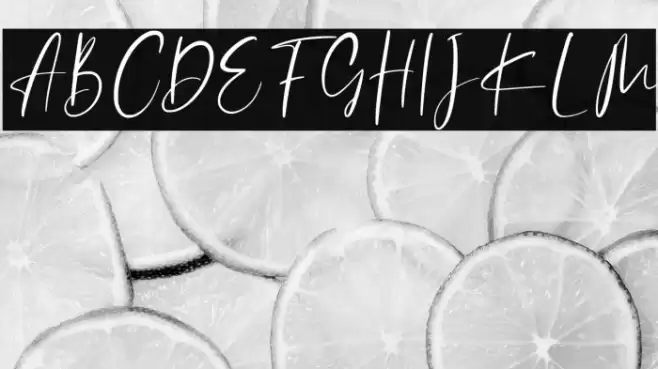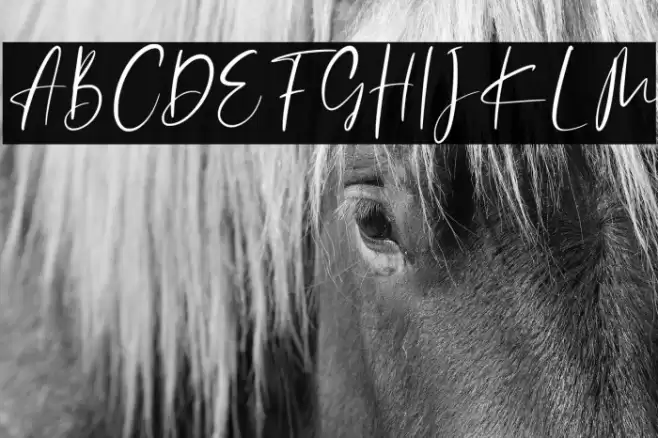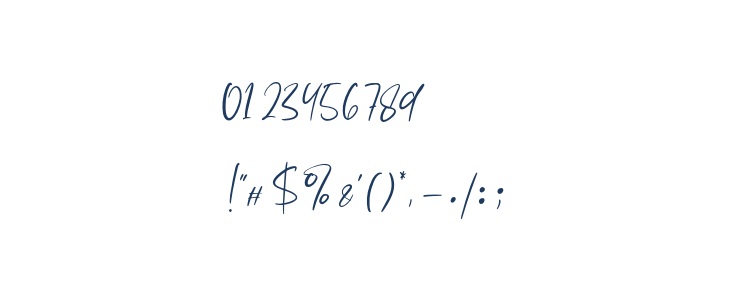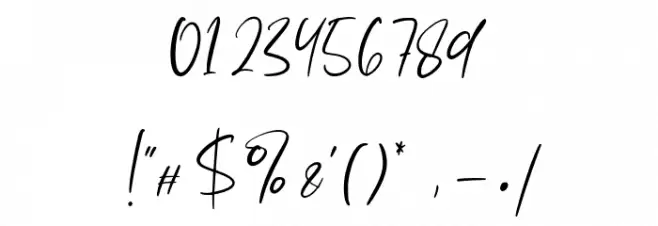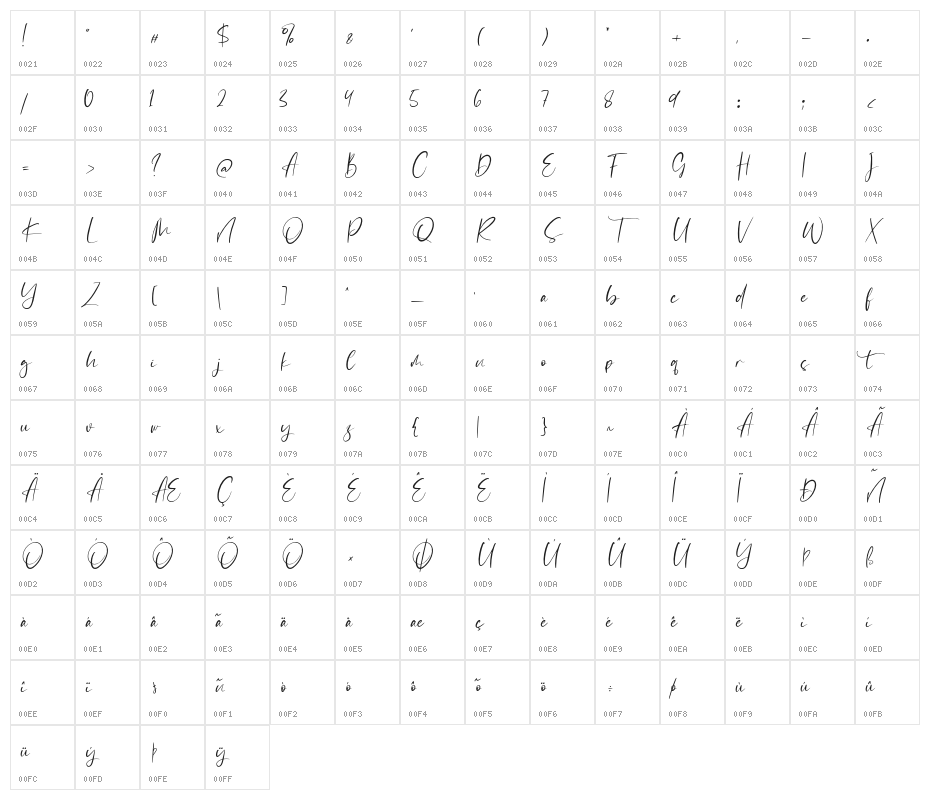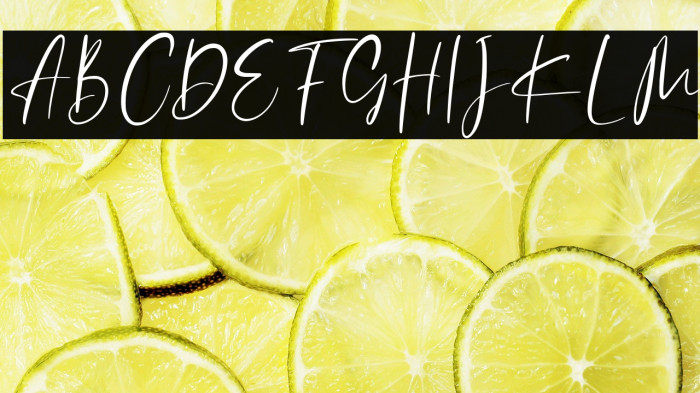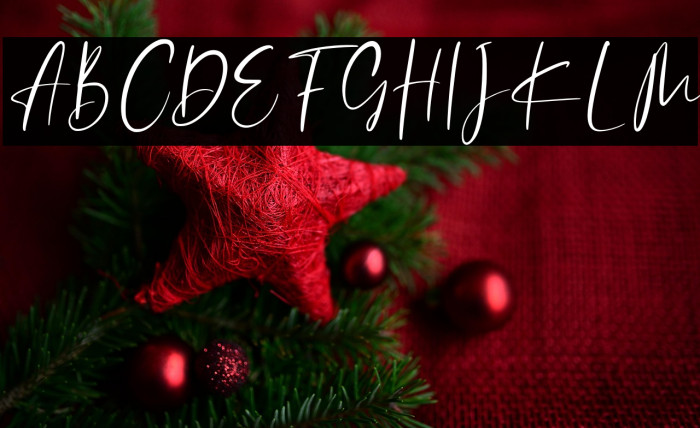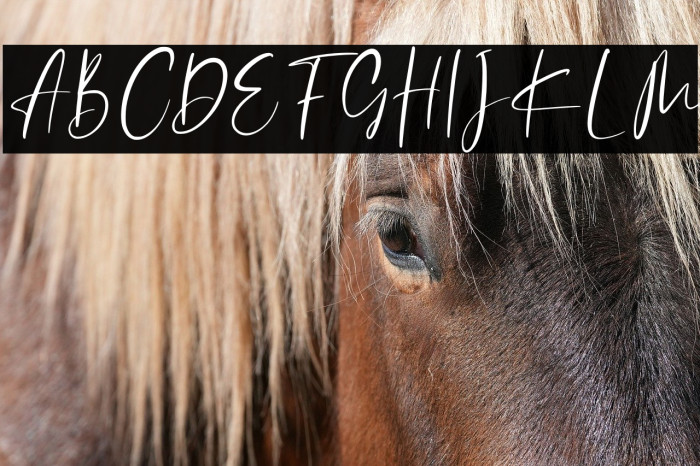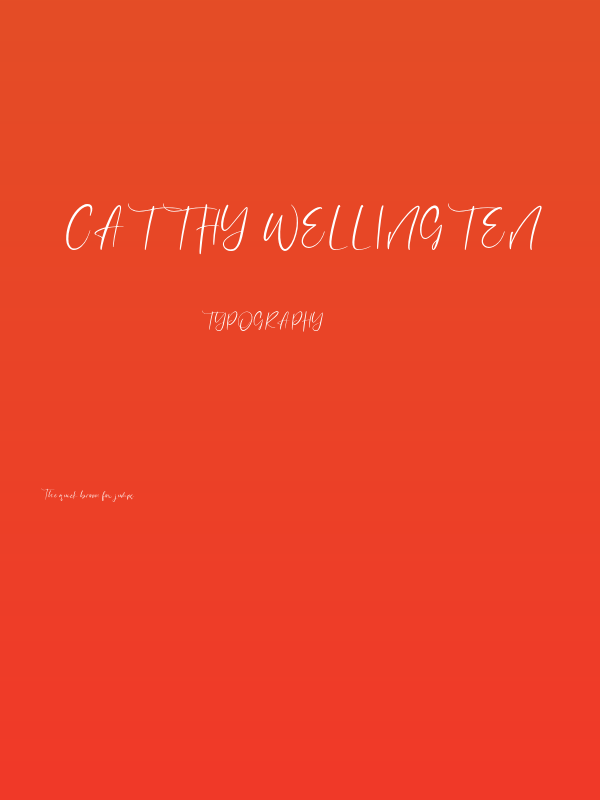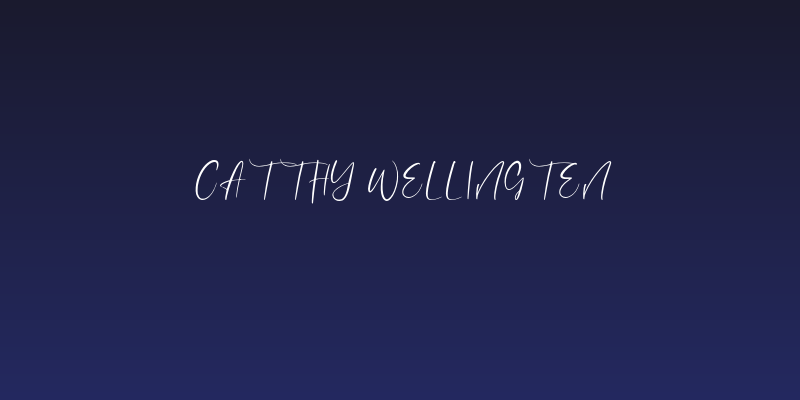
Catthy Wellingten Font
Catthy Wellingten Description
This font exudes a lively and dynamic personality with its flowing, cursive style. The letters are crafted with a sense of movement, featuring elegant loops and swirls that give it a handwritten feel. The uppercase letters are bold and expressive, while the lowercase letters maintain a consistent flow, enhancing readability. Numbers and special characters are designed to match the overall aesthetic, making them suitable for creative projects. The font's playful yet sophisticated nature makes it ideal for branding, invitations, and artistic designs.
A lively, cursive font with elegant loops and a handwritten feel from Uncategorized fonts.